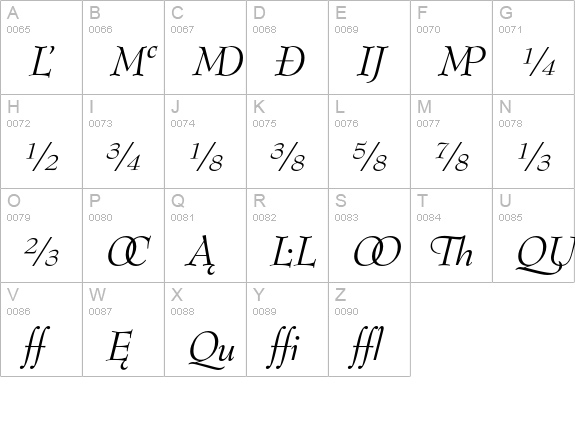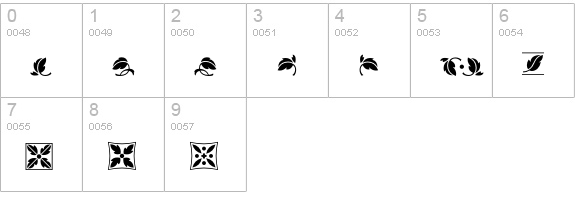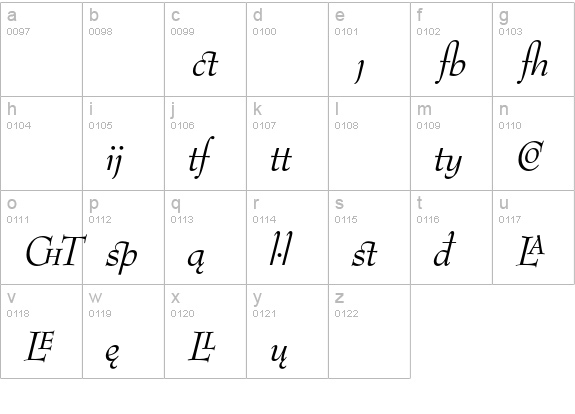
Bernhard Modern Italic Extension Font Details
Bernhard Modern Italic Extension is a distinctive, italic variant in the Bernhard typeface family \xE2\x80\x94 well suited to design and typography projects.
Bernhard Modern Italic Extension font is a stylish and elegant typeface that exudes sophistication and professionalism. The italic design adds a touch of flair and modernity to any project, making it perfect for use in editorial designs, branding, and advertising. The sleek and flowing letterforms of this font are sure to catch the eye and leave a lasting impression. What makes Bernhard Modern Italic Extension font even more appealing is that it is available for free download at FontsMarket.com. This means you can access this high-quality font without any cost, making it a valuable addition to your font collection. Don't miss out on the opportunity to enhance your designs with this beautiful and versatile typeface. Download Bernhard Modern Italic Extension font today and elevate your projects to the next level.